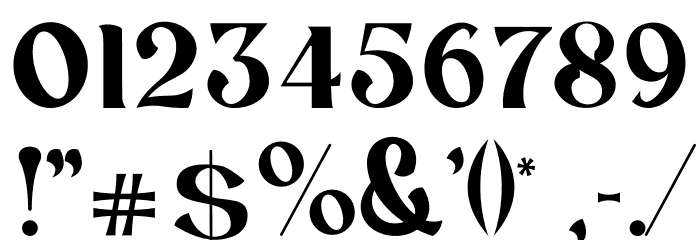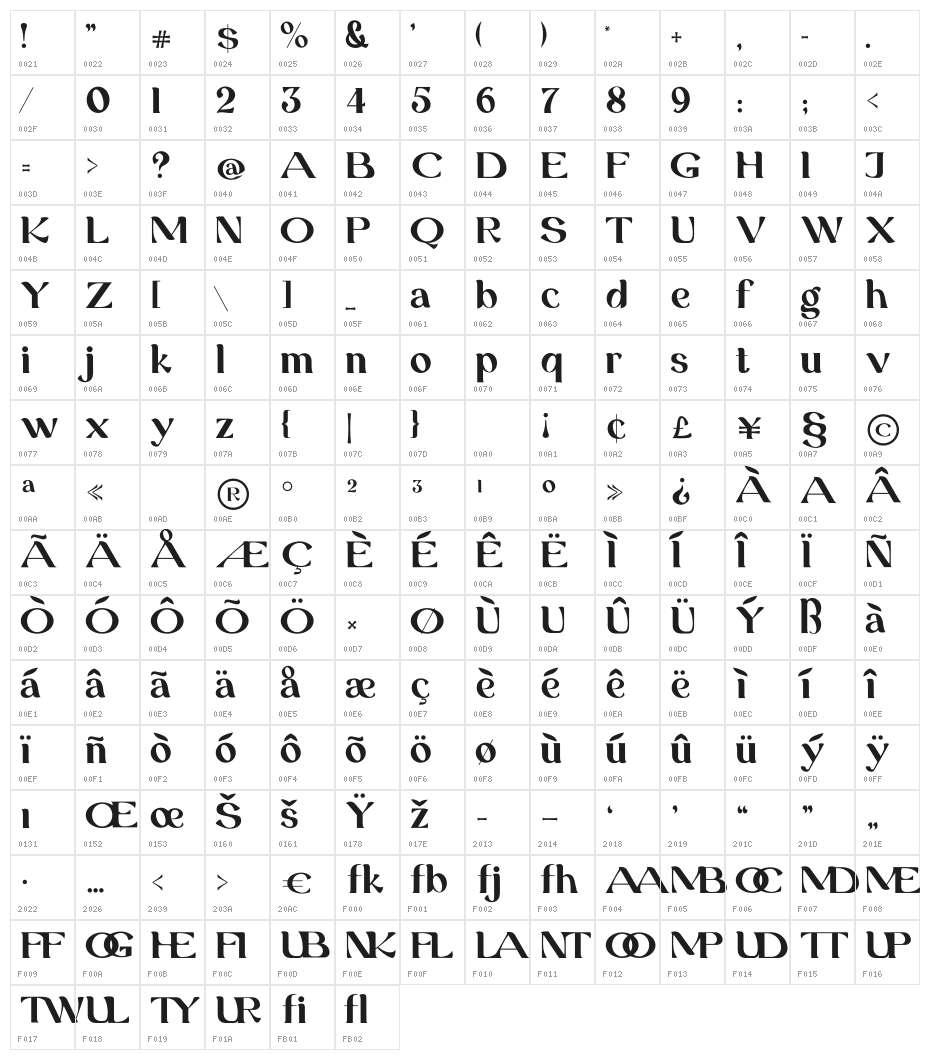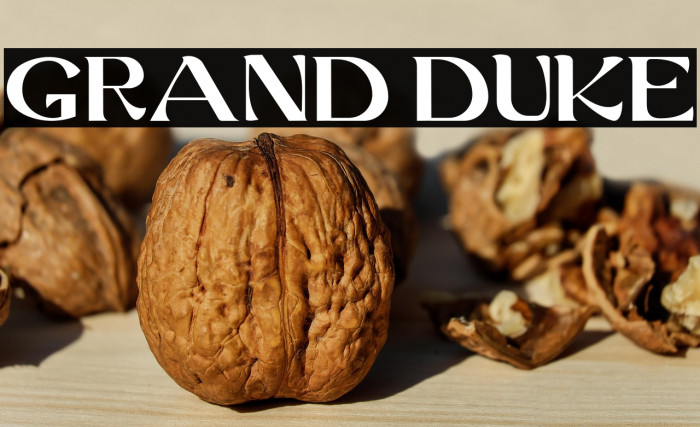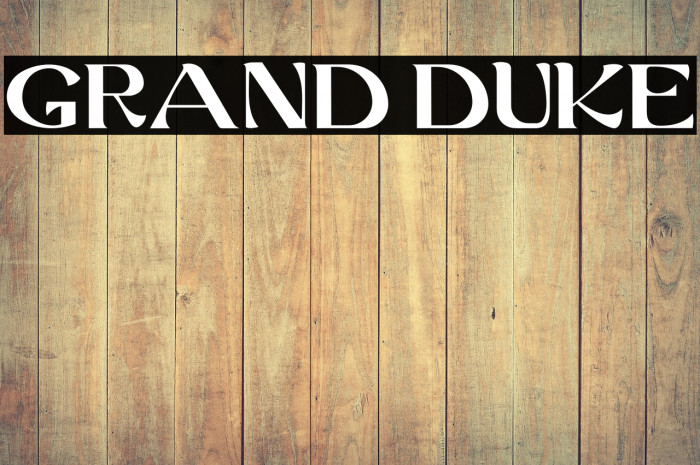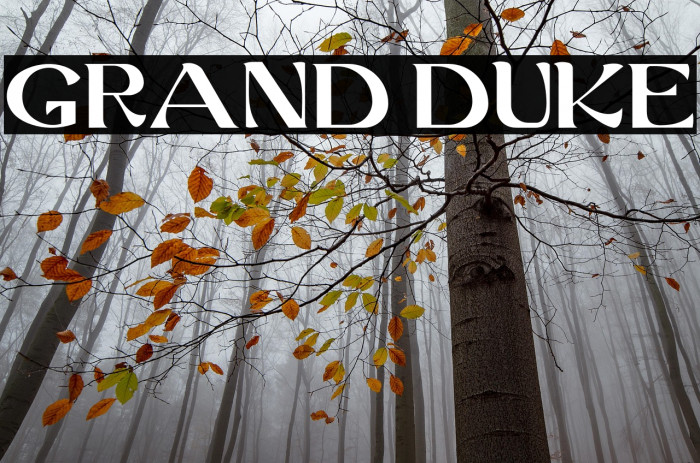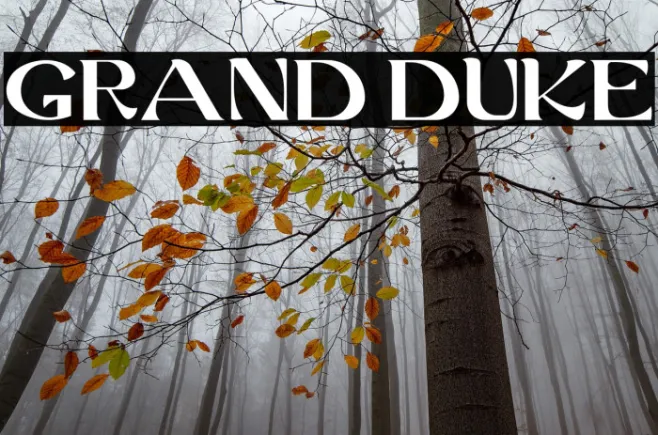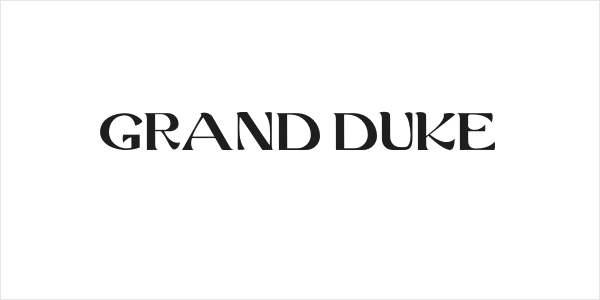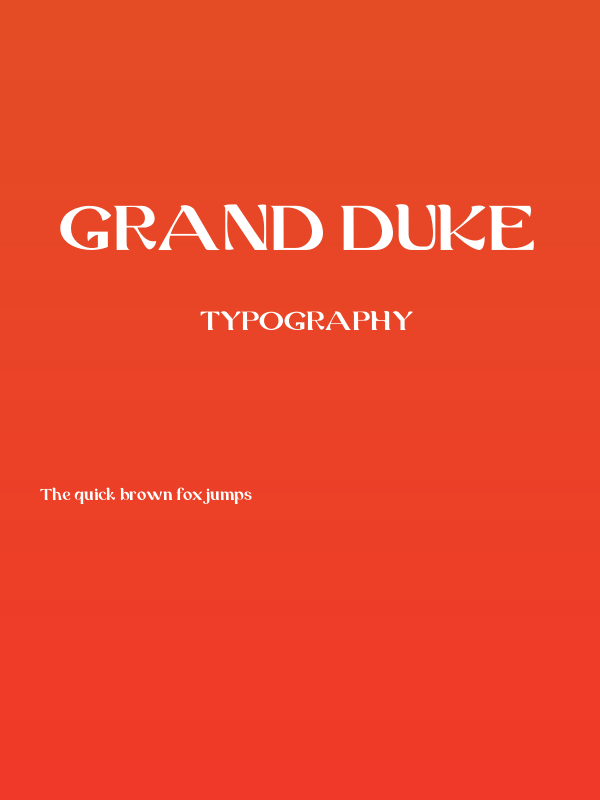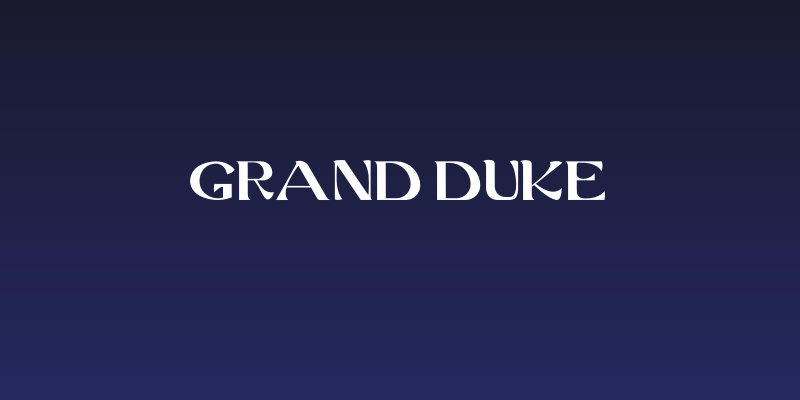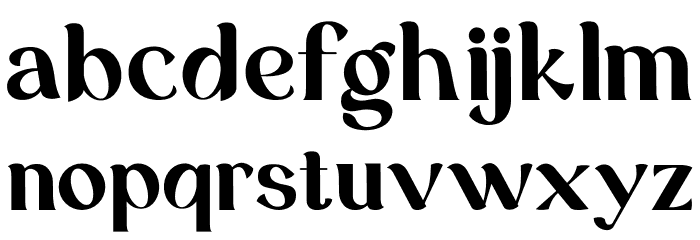
GRAND DUKE Font
GRAND DUKE Description
This font exhibits a bold and dramatic style with high contrast between thick and thin strokes, giving it a distinctive and elegant appearance. The uppercase letters are characterized by sharp, angular serifs and a strong vertical emphasis, while the lowercase letters maintain a consistent weight with rounded forms that add a touch of softness. The numerals are designed with a similar boldness, ensuring readability and visual impact. Special characters are crafted with attention to detail, maintaining the overall aesthetic of the typeface. The font's unique style makes it suitable for projects that require a touch of sophistication and flair.
| Proposed Projects | Ideal for luxury branding, editorial design, book covers, and high-end product packaging. |